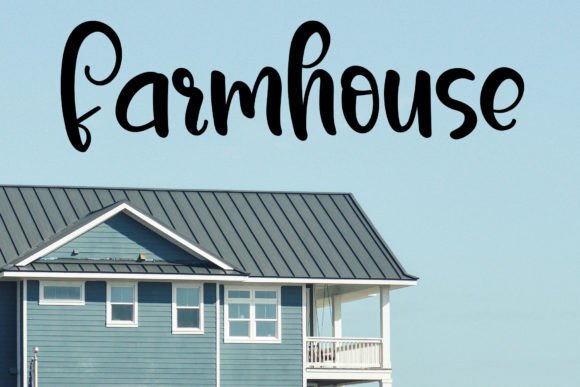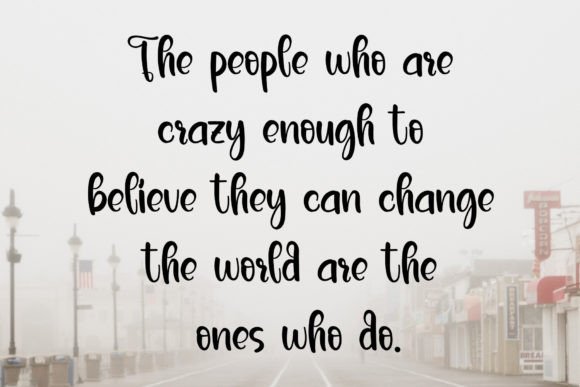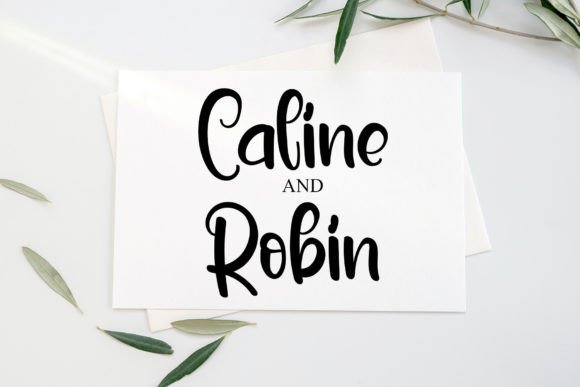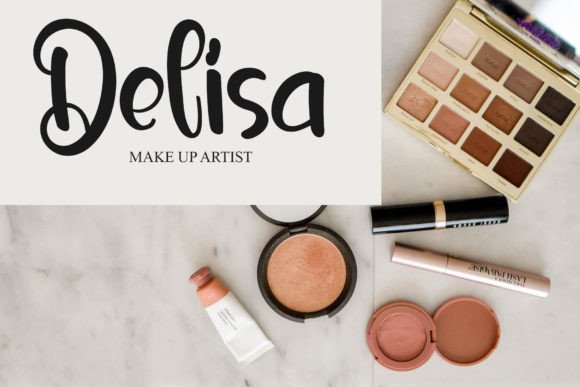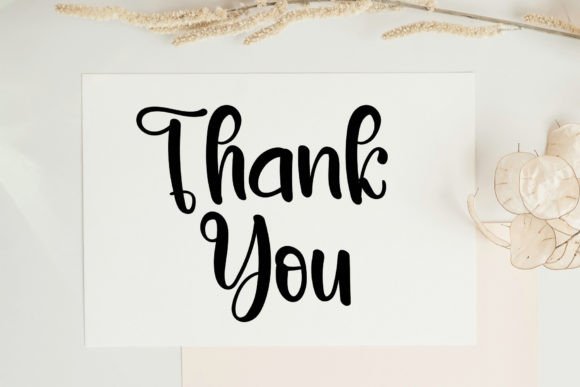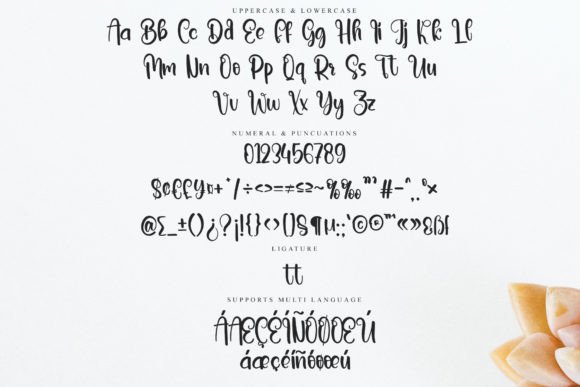
Introduction to Hacking Font Font
Fonts play a crucial role in design, and the Hacking Font font is a typeface that brings both character and versatility to any project. Whether you’re working on a branding project, a website, or a print design, the Hacking Font font offers a unique style that can elevate your work.
| π Font Name | Hacking Font |
| π€ Author | YanStudio |
Hacking is bold and expressive.
Its thick and solid lines make it easy to read and its conservative bends arenβt overwhelming to the eyes A balanced fusion of playful and professional, there are a ton of design projects this font will be perfect for.
Key Features of Hacking Font Font
Why Choose Hacking Font Font?
The Hacking Font font is more than just a typeface β it’s a design tool that helps you communicate your message with style and clarity. Its unique character set and versatile design make it suitable for a wide range of applications, from elegant invitations to bold headlines.
With its carefully crafted letterforms and balanced proportions, the Hacking Font font ensures readability and visual appeal across all mediums.
What makes Hacking Font font special?
The Hacking Font font stands out with its unique design, exceptional readability, and versatility across various design applications.